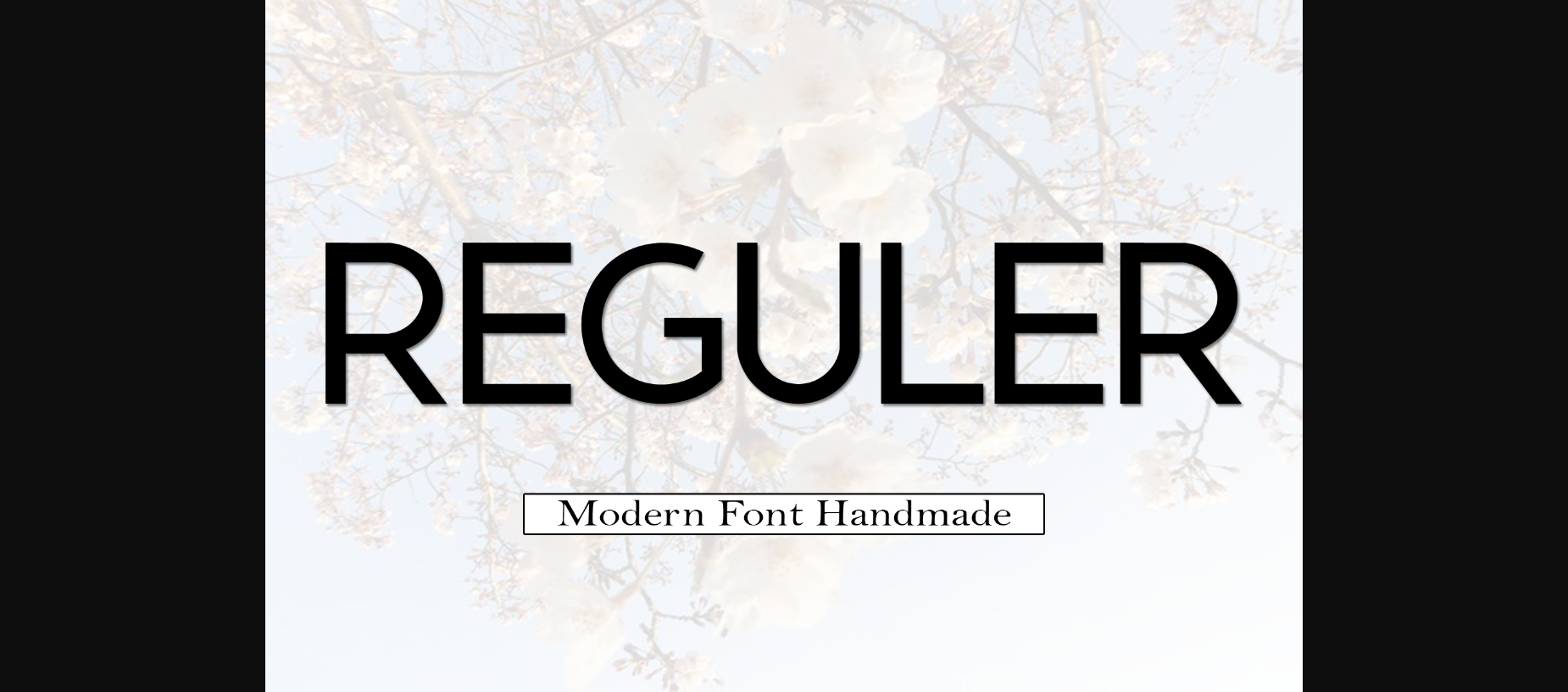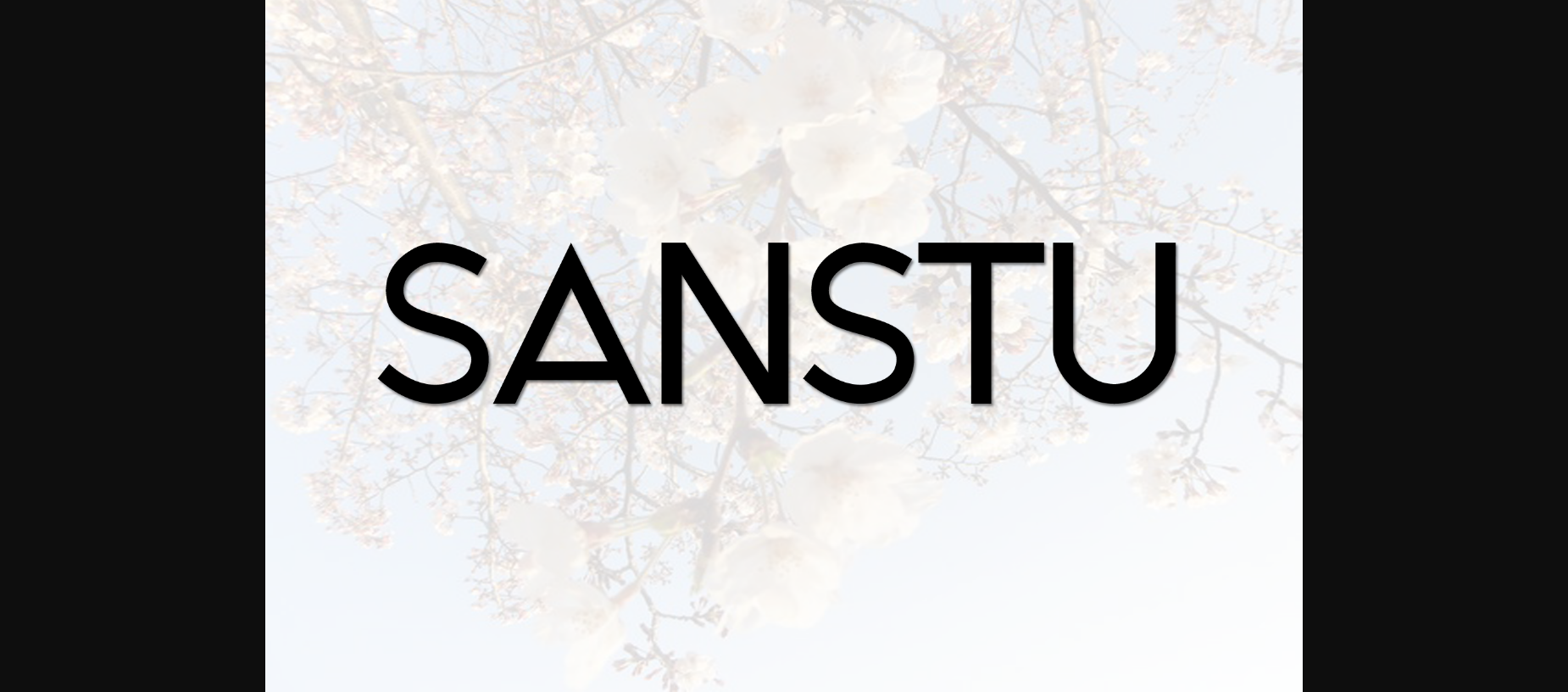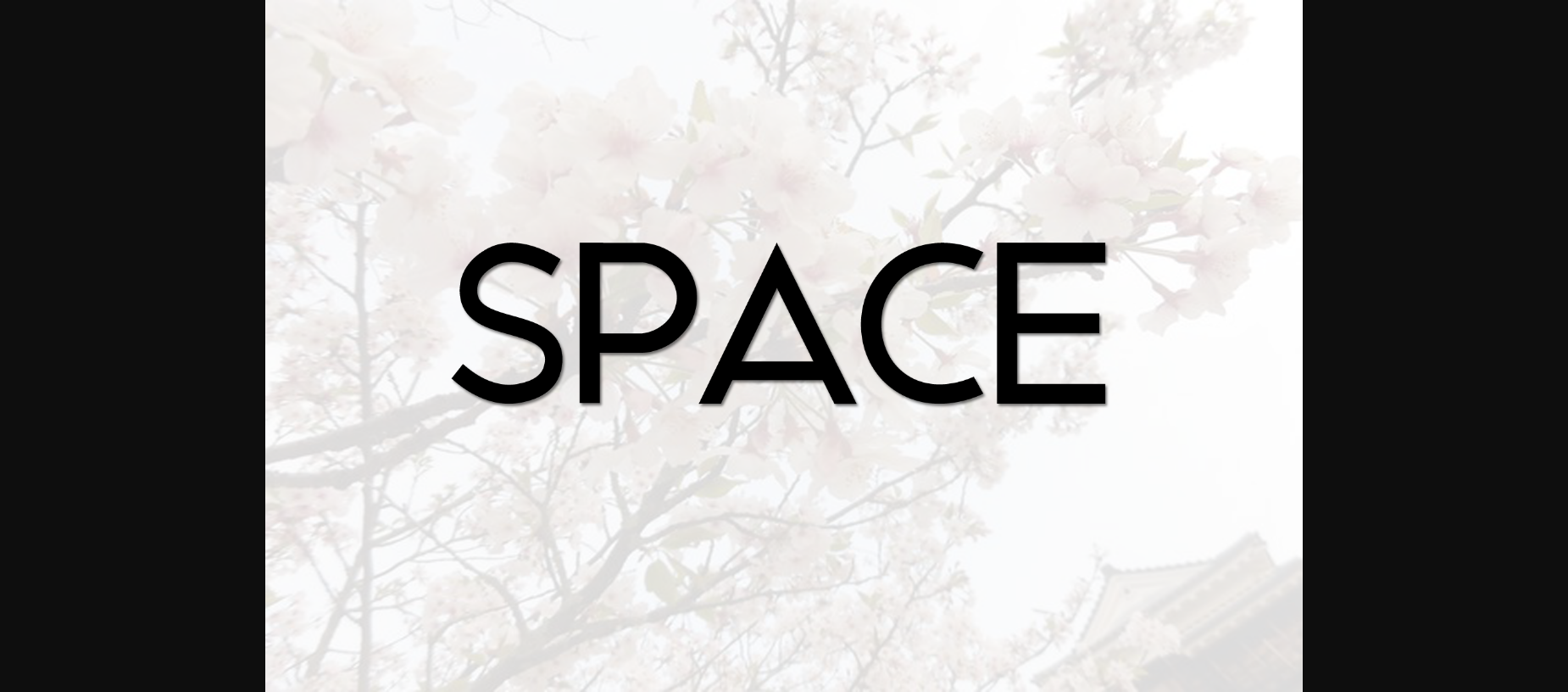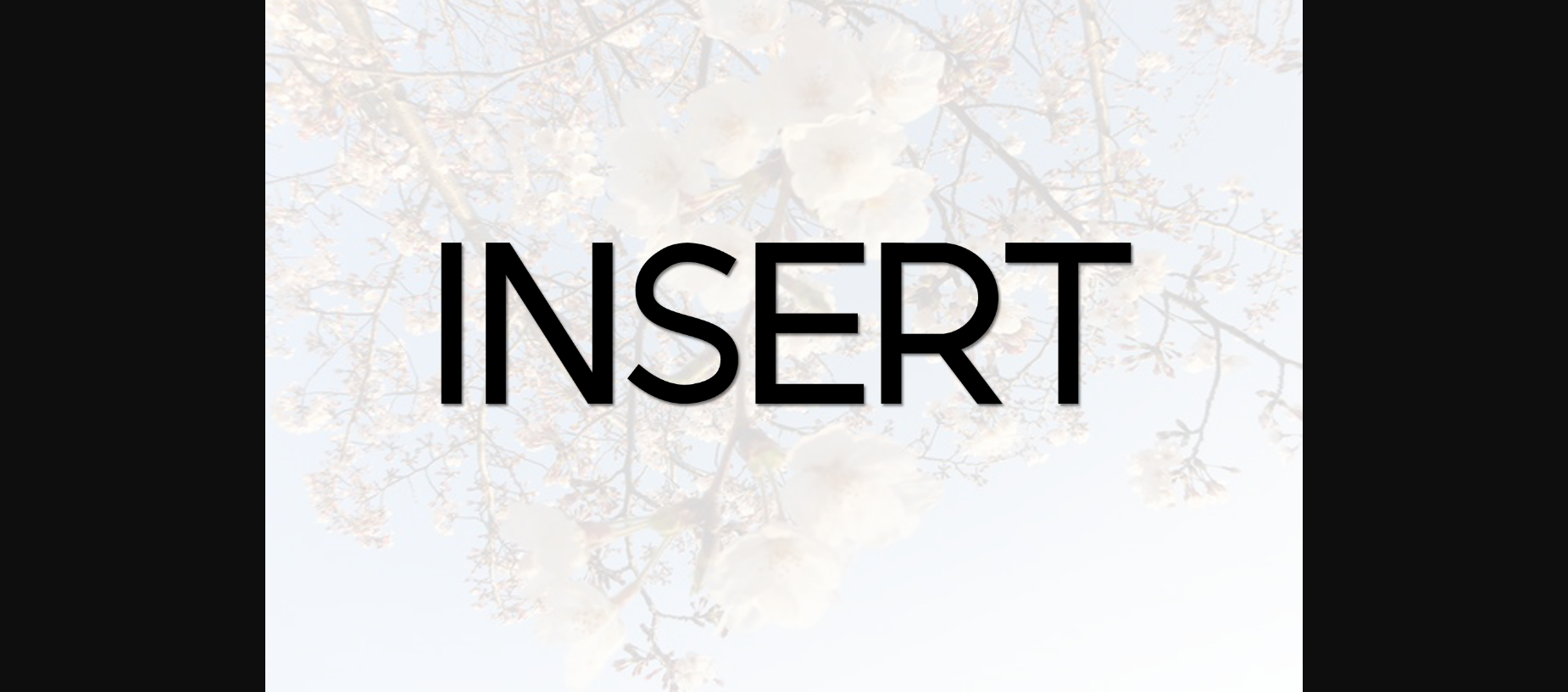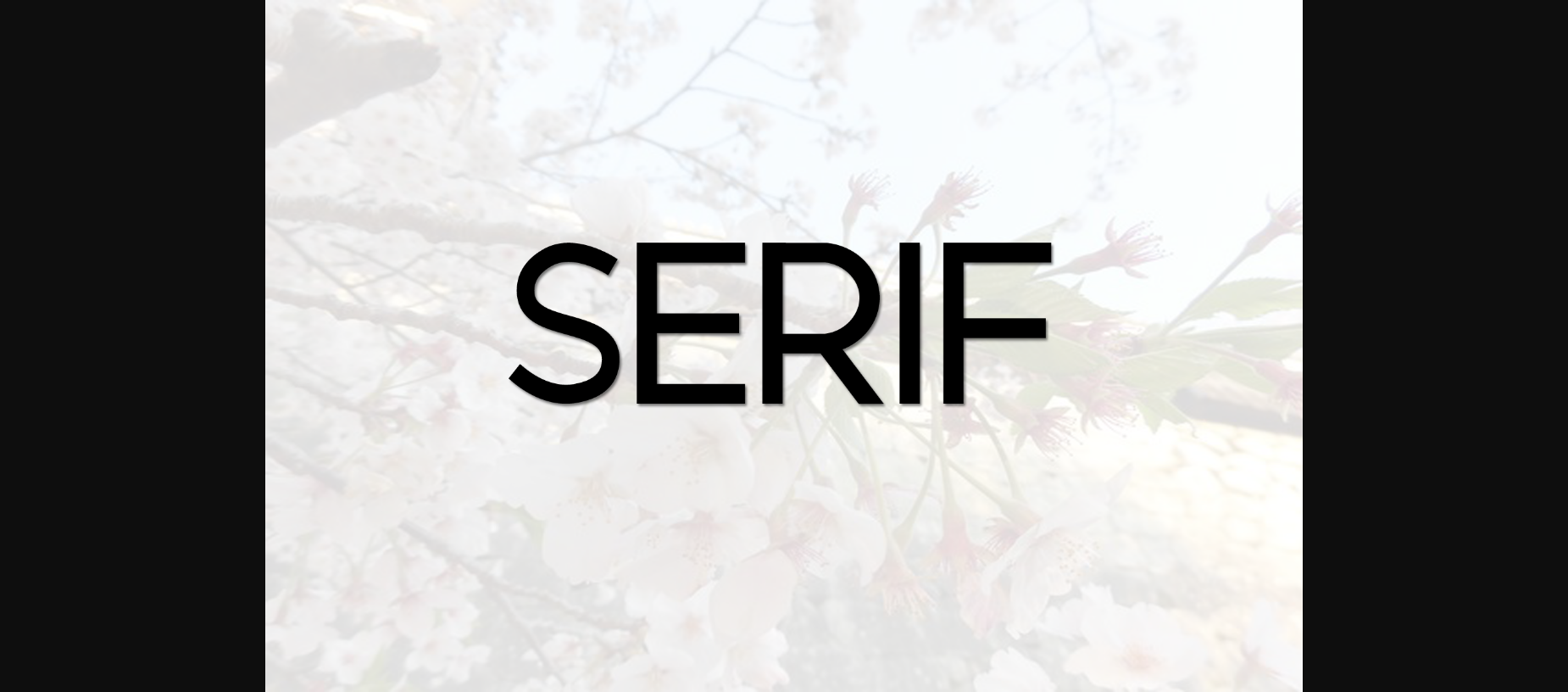
About Reguler Font
Reguler is a stylish and very elegant sans serif font. It looks amazing on wedding invitations, thank you cards, quotes, greeting cards, logos, business cards and any other design that calls for a handwritten touch.